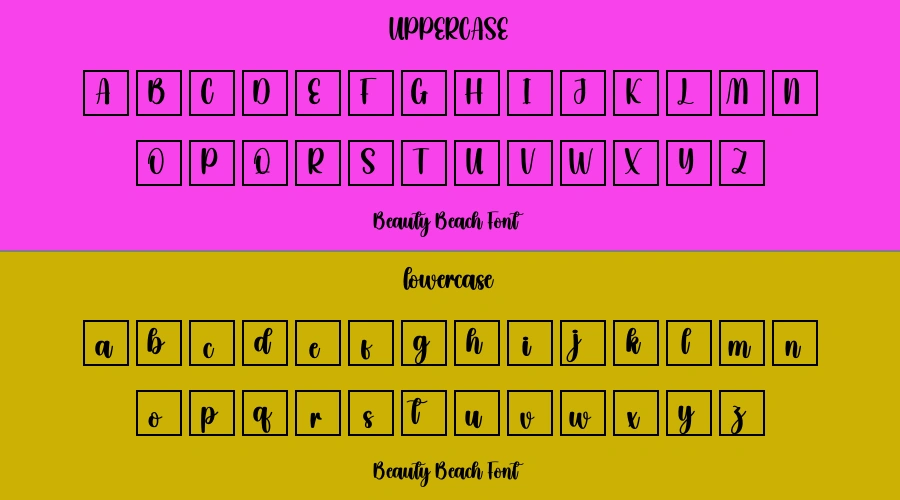
About Beauty Beach Font
Designed with precision, Beauty Beach Font merges natural flow with accuracy in every character. This versatility makes it particularly effective for government publications, where accuracy and technical excellence directly impact communication quality. Each letterform demonstrates meticulous craftsmanship.
Technical excellence shines through elements like harmonious shapes and traditional styling, enhancing typographic versatility. In academic theses settings, Beauty Beach Font proves its worth through superior performance. The thoughtful execution of letterfit and generational relevance ensures professional results.